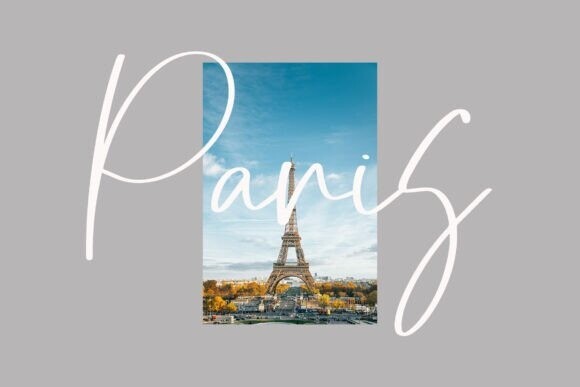
Sofija Font
Sofija Font is a stunning script font that combines elegance with unique, hand-crafted character designs. Its sophisticated style adds a touch of class and creativity to any project, making it perfect for enhancing product visuals and creating eye-catching designs.